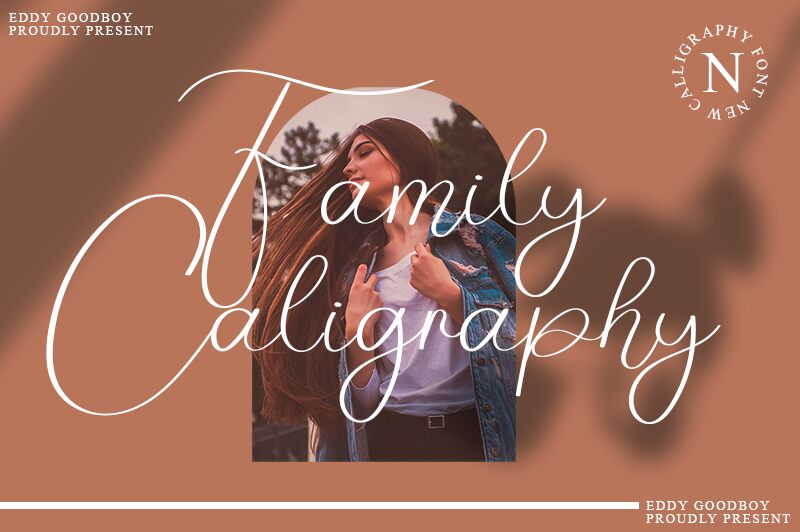
Family Caligraphy, designed by Eddy Goodboy, is the epitome of delicate calligraphy. With its extra-light weight and graceful curves, this font exudes elegance and sophistication. Ideal for wedding invitations, greeting cards or any project that requires a touch of refinement. Use it to add a personal touch to your branding materials or elevate your website design. Family Caligraphy’s stunning flourishes and ornamental details make it perfect for creating beautiful logos or product packaging. This typeface is versatile enough to be used in a variety of projects from fashion magazines to luxury spa brochures. Experience the beauty of Family Caligraphy today!